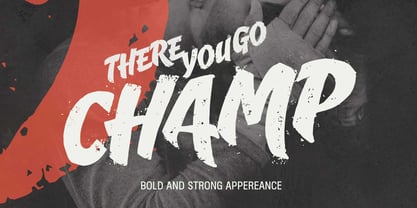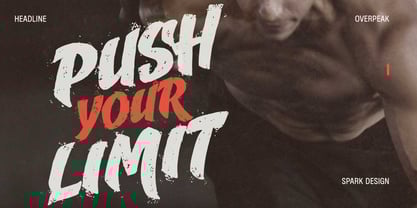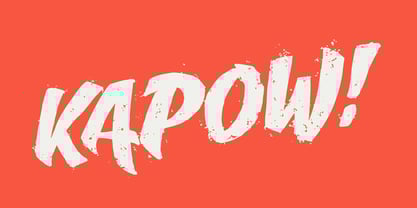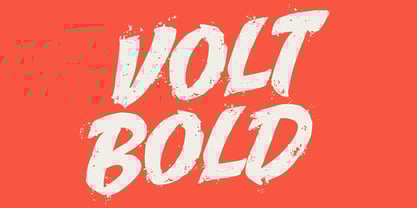
Swash Break
by Eko Bimantara
The Swash Break Font Family was designed by Eko Bimantara and published by Eko Bimantara. Swash Break contains 1 styles. More about this family
Swash Break is a bold brush display font featuring strong, rough, and masculine characteristics with dynamic brush strokes and scatter effects. Designed in an all-caps style, it is perfect for adding a bold, expressive touch to artistic, rough, and striking designs. Ideal for branding, titles, t-shirts, and packaging, Swash Break fits various design themes that require a raw, powerful presence. Its versatility makes it well-suited for display purposes in large sizes, headers, websites, brand identities, and other broad graphic design and creative projects.
Eko Bimantara is a type designer from Indonesia. Always has an intention to creating fonts that not only look great but also perform across a wide range of mediums and also across wide range of theme. The goal is to give designers the tools to make their projects that speaks a lot with various expression. Eko Bimantara’s fonts are featured in everything from corporate identities to street art posters, and have numerous ideas and concept ready to expand for fresh fonts for years further.